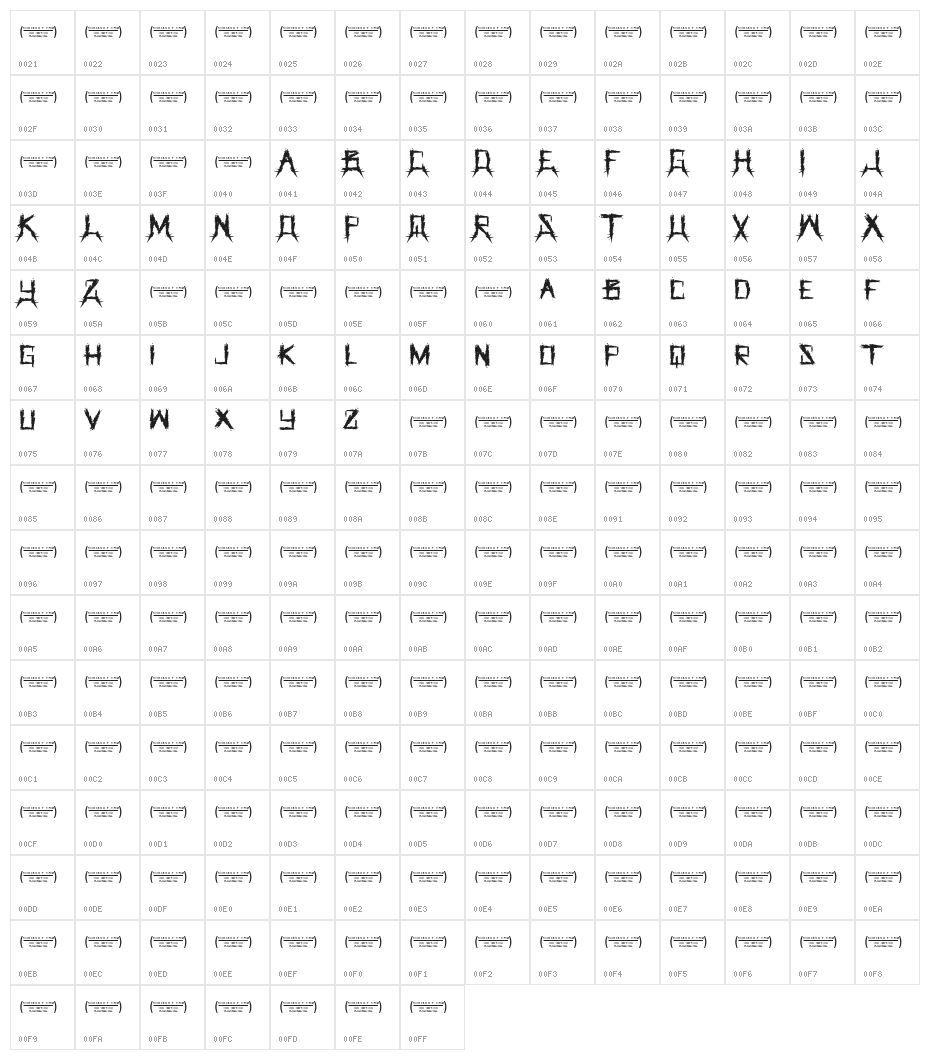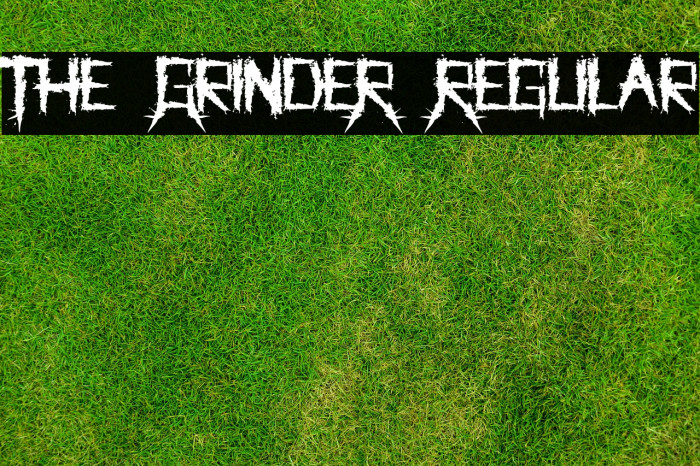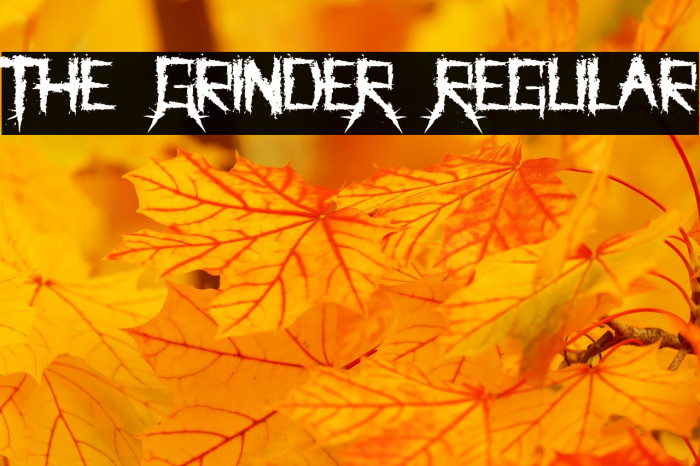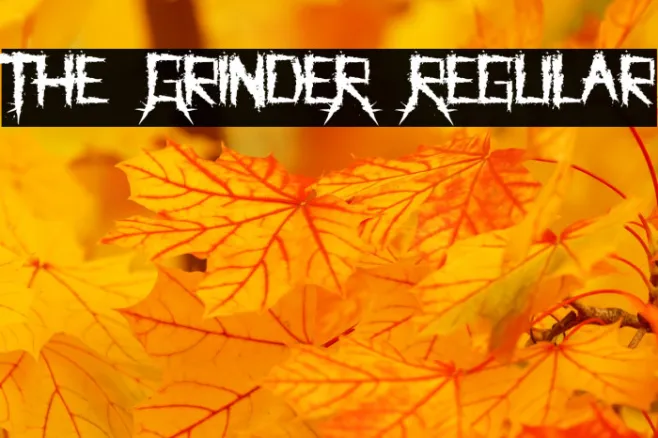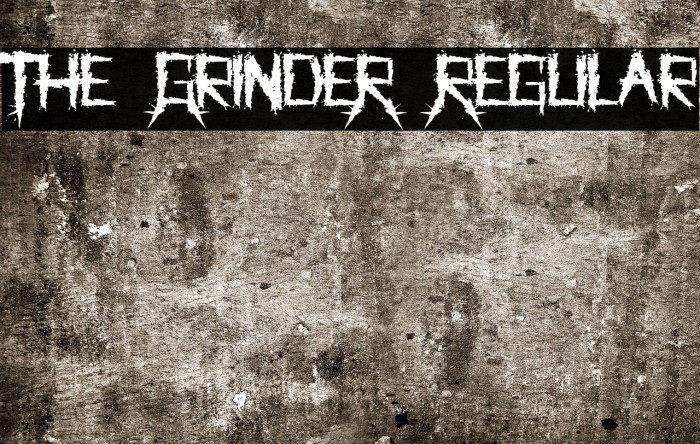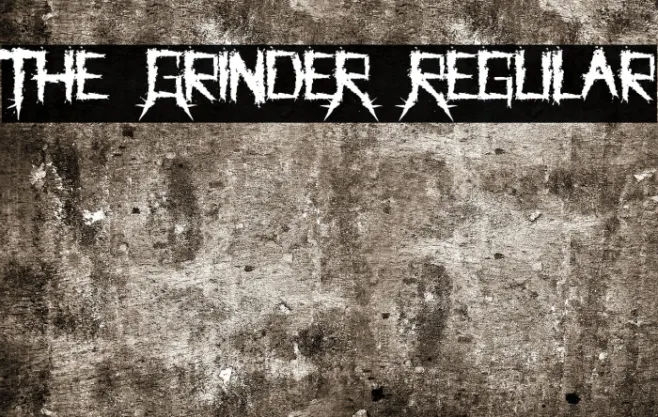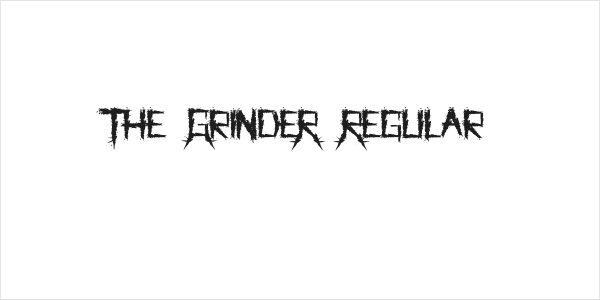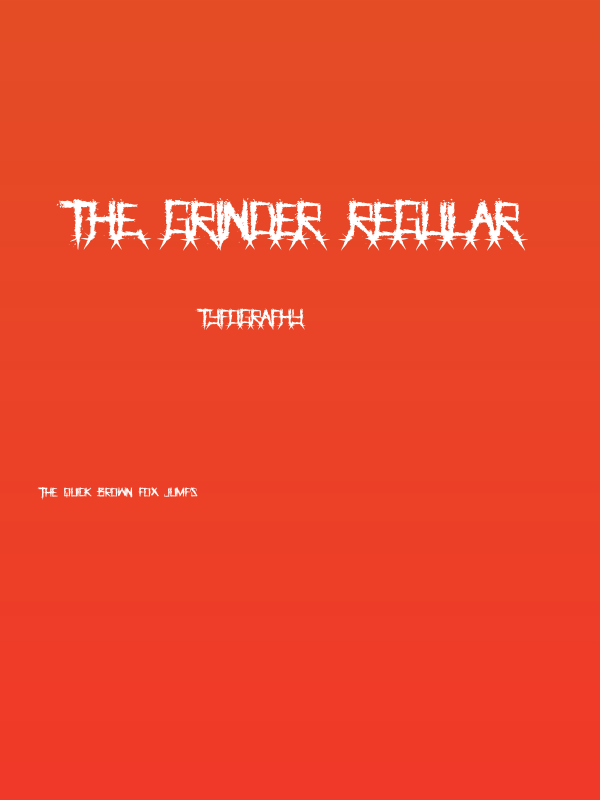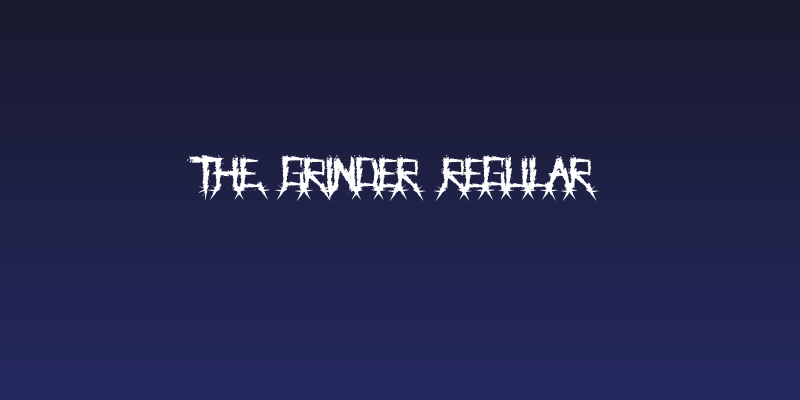
The GrindeR Regular Font
The GrindeR Regular Description
This font features a gritty, distressed style with sharp, angular edges and a rough texture that mimics the look of worn or eroded surfaces. The characters are bold and striking, with an aggressive aesthetic that conveys a sense of rebellion or edginess. The uppercase and lowercase letters maintain a consistent design, emphasizing the chaotic and raw nature of the font. The overall appearance is highly decorative, making it suitable for projects that require a bold statement or an unconventional look.
| Use Case | Logos, Posters, Album covers |
| Proposed Projects | Ideal for music album covers, posters, or branding for edgy or alternative brands. |